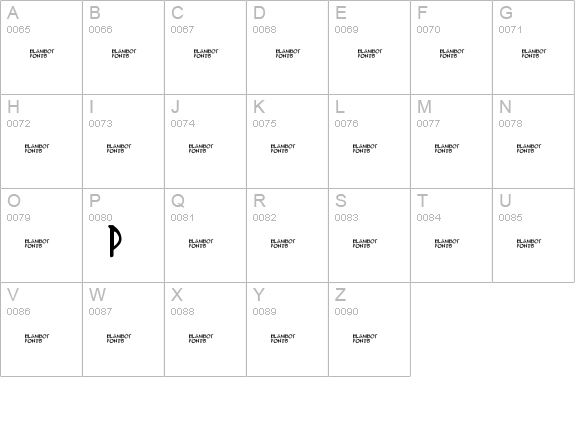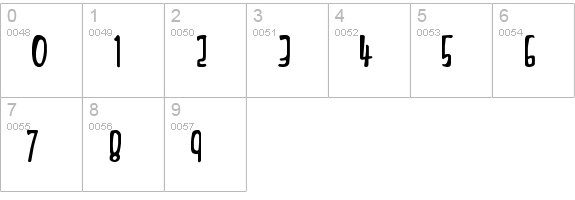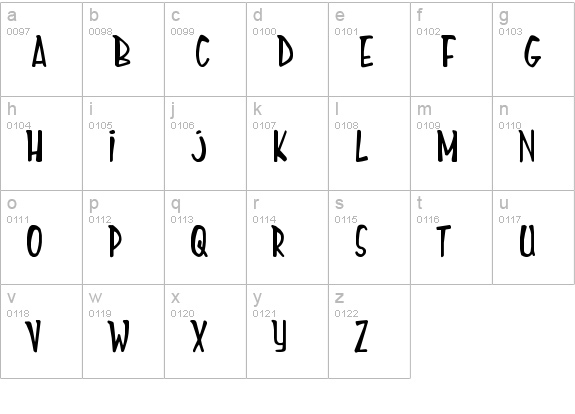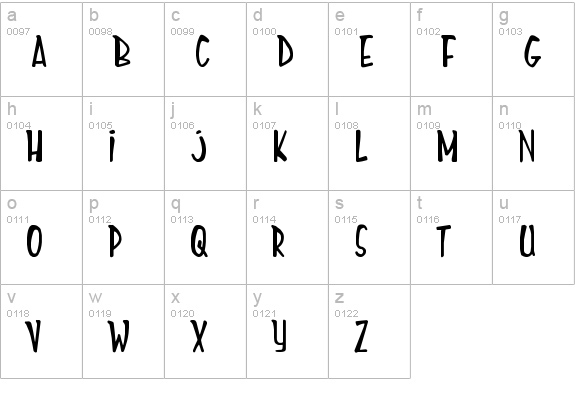
Introducing Mighty Tomato font, a bold and vibrant typeface that exudes energy and creativity. With its playful curves and strong presence, this font is perfect for making a statement in your designs. Whether you're working on a poster, logo, or packaging, Mighty Tomato will add a touch of fun and personality. The best part? Mighty Tomato font is completely free to download at FontsMarket.com. You can easily access this versatile font to elevate your projects without breaking the bank. Don't miss out on the opportunity to add this unique and eye-catching font to your collection. Download Mighty Tomato now and let your creativity shine!